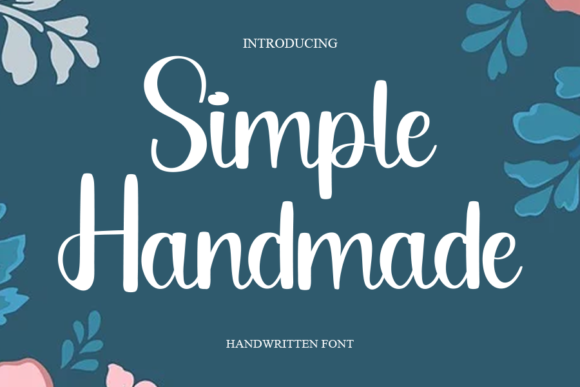
Immerse yourself in the whimsical charm of Simple Handmade Font, a captivating script font family that will awaken your creative spirit. Experience the allure of this enchanting font, meticulously crafted to evoke nostalgia and warmth. Its delicate handwritten strokes and authentic style will transport you to a world of imagination and endless possibilities.
Unleash your creativity and make a statement with Simple Handmade Font, perfect for your web design endeavors. Its versatility extends beyond the digital realm, making it an ideal choice for heartfelt handwritten letters, personalized greeting cards, and unique signage. Imagine your words taking on a life of their own, imbued with an irresistible charm that captivates the hearts of your audience.
With Simple Handmade Font, you'll discover a font that's both versatile and expressive. Its playful character adds a touch of whimsy to your designs, while its elegance lends a touch of sophistication. Whether you're creating marketing materials, product packaging, or simply adding a personal touch to your digital creations, Simple Handmade Font is the ultimate choice for making a lasting impression.
Indulge in the charm of Simple Handmade Font, a font that evokes a sense of nostalgia and warmth. Its delicate strokes and authentic style will add a personal touch to your designs, making them stand out from the crowd. Let your creativity soar as you explore the endless possibilities of this enchanting font. Embrace the allure of Simple Handmade Font and watch your designs come to life with a touch of magic.